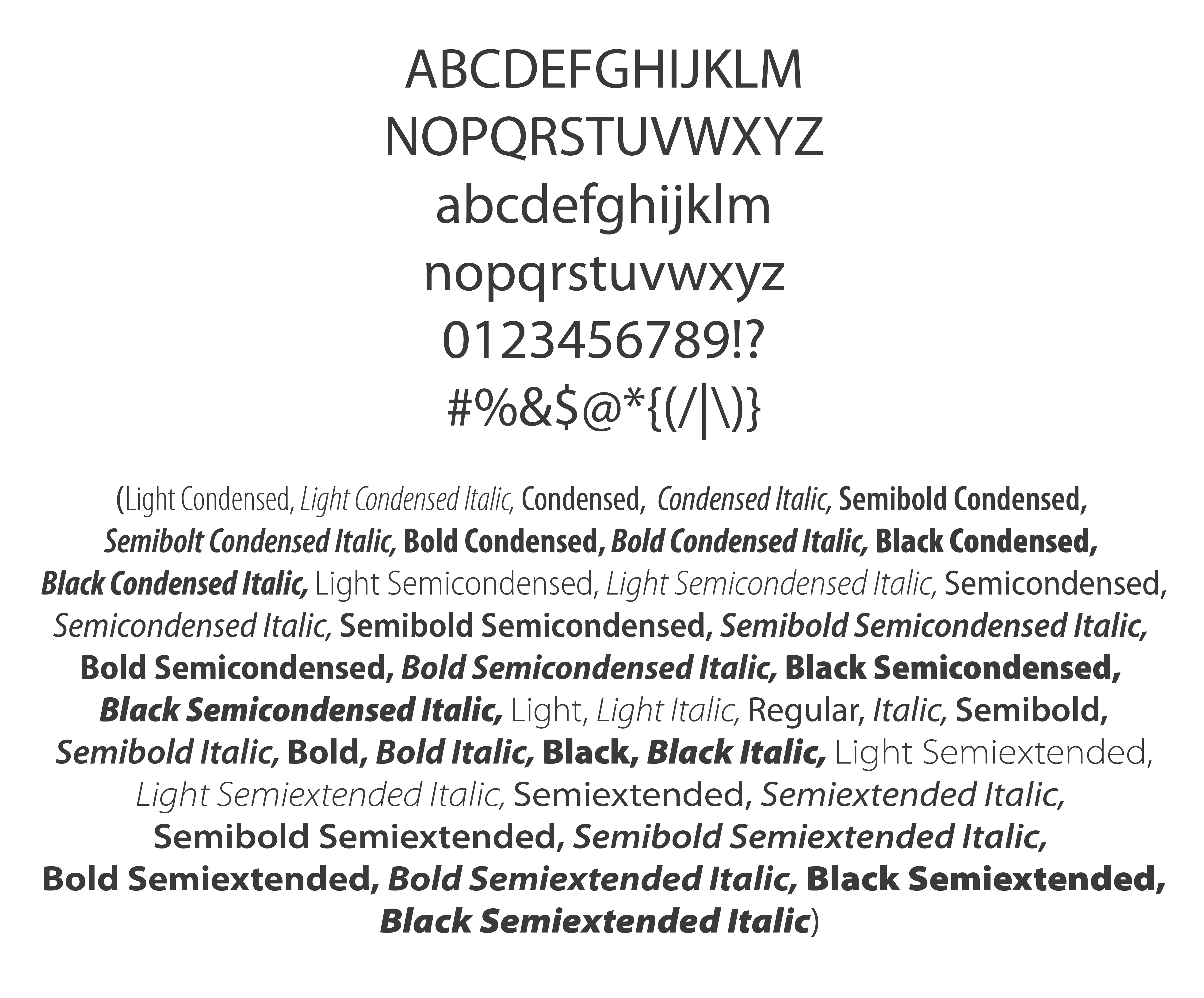
Free Font Download Myriad Pro - Web myriad pro font download free. Web myriad pro regular is a regular truetype font. 2 users have given the font a rating of 5.0. Web as an opentype release, myriad pro expands this sans serif family to include greek and cyrillic glyphs, as well as adding oldstyle. It has been downloaded 414 times. Web myriad pro font free download. Opentype, humanistic sans, script, truetype.
Web myriad pro regular is a regular truetype font. Web myriad pro font free download. It has been downloaded 414 times. Opentype, humanistic sans, script, truetype. 2 users have given the font a rating of 5.0. Web as an opentype release, myriad pro expands this sans serif family to include greek and cyrillic glyphs, as well as adding oldstyle. Web myriad pro font download free.
Web as an opentype release, myriad pro expands this sans serif family to include greek and cyrillic glyphs, as well as adding oldstyle. Web myriad pro font download free. 2 users have given the font a rating of 5.0. Web myriad pro font free download. Web myriad pro regular is a regular truetype font. Opentype, humanistic sans, script, truetype. It has been downloaded 414 times.
Opentype, humanistic sans, script, truetype. 2 users have given the font a rating of 5.0. Web myriad pro font free download. Web myriad pro font download free. It has been downloaded 414 times.
Web myriad pro font free download. It has been downloaded 414 times. 2 users have given the font a rating of 5.0. Web myriad pro font download free. Opentype, humanistic sans, script, truetype.
Web myriad pro regular is a regular truetype font. It has been downloaded 414 times. Web myriad pro font download free. Web as an opentype release, myriad pro expands this sans serif family to include greek and cyrillic glyphs, as well as adding oldstyle. Web myriad pro font free download.
Web myriad pro font download free. Opentype, humanistic sans, script, truetype. It has been downloaded 414 times. 2 users have given the font a rating of 5.0. Web as an opentype release, myriad pro expands this sans serif family to include greek and cyrillic glyphs, as well as adding oldstyle.
It has been downloaded 414 times. Web myriad pro font free download. Web as an opentype release, myriad pro expands this sans serif family to include greek and cyrillic glyphs, as well as adding oldstyle. Web myriad pro regular is a regular truetype font. 2 users have given the font a rating of 5.0.
Web as an opentype release, myriad pro expands this sans serif family to include greek and cyrillic glyphs, as well as adding oldstyle. Web myriad pro regular is a regular truetype font. It has been downloaded 414 times. Opentype, humanistic sans, script, truetype. Web myriad pro font free download.
Opentype, humanistic sans, script, truetype. Web myriad pro regular is a regular truetype font. Web myriad pro font free download. It has been downloaded 414 times. 2 users have given the font a rating of 5.0.
Web myriad pro font download free. Web myriad pro font free download. Opentype, humanistic sans, script, truetype. Web as an opentype release, myriad pro expands this sans serif family to include greek and cyrillic glyphs, as well as adding oldstyle. It has been downloaded 414 times.
Download Free Font Myriad Pro
Web myriad pro regular is a regular truetype font. Web myriad pro font download free. 2 users have given the font a rating of 5.0. Web myriad pro font free download. It has been downloaded 414 times.
Myriad Pro Font Fontzaa Fonts Free Download
Web myriad pro font free download. Web as an opentype release, myriad pro expands this sans serif family to include greek and cyrillic glyphs, as well as adding oldstyle. Web myriad pro font download free. Opentype, humanistic sans, script, truetype. It has been downloaded 414 times.
Web myriad pro font download free. Web myriad pro font free download. It has been downloaded 414 times. Web as an opentype release, myriad pro expands this sans serif family to include greek and cyrillic glyphs, as well as adding oldstyle.
Opentype, Humanistic Sans, Script, Truetype.
Web myriad pro regular is a regular truetype font.